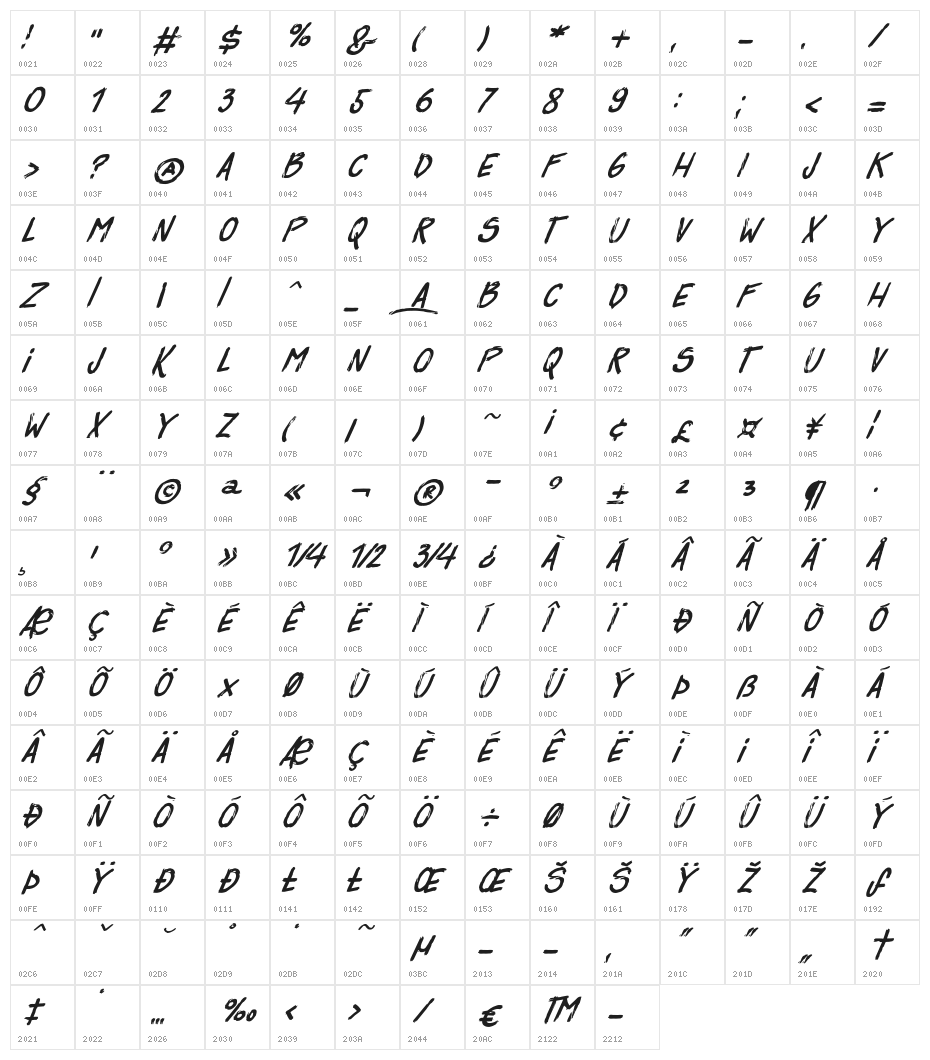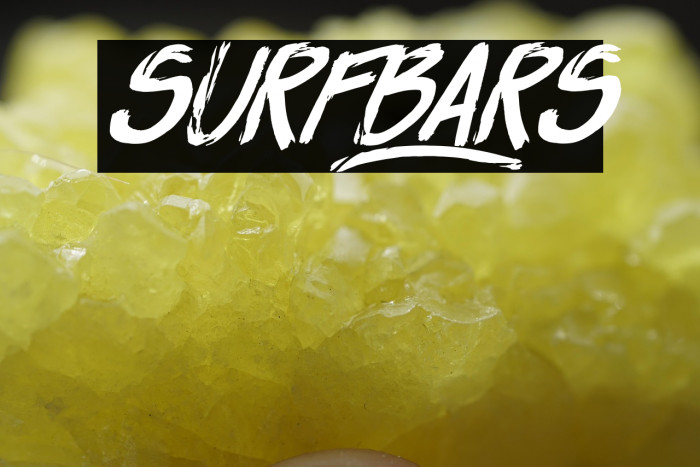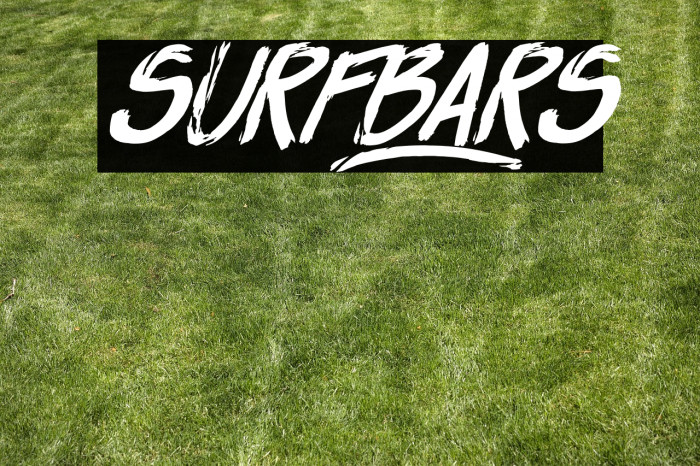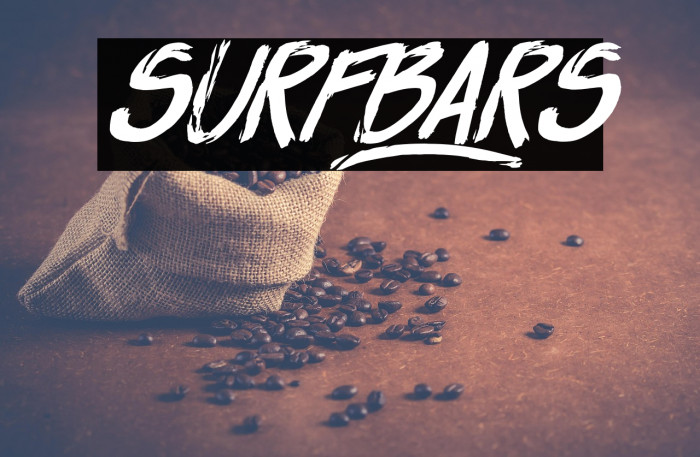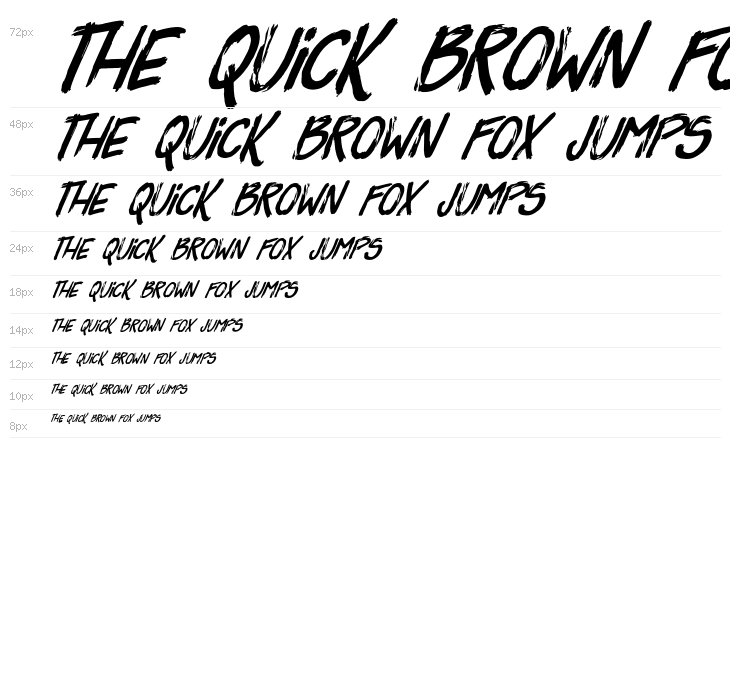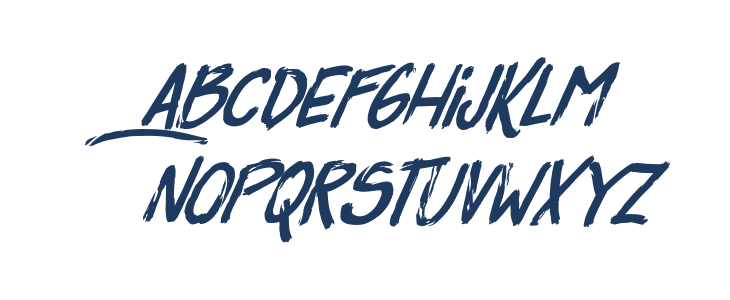
Surfbars Font
Surfbars Description
This font features a bold, energetic brush script style that exudes a sense of movement and dynamism. The strokes are thick and uneven, giving it a hand-painted appearance that is both expressive and artistic. The uppercase and lowercase letters maintain a consistent style, with a slight slant that enhances the fluidity of the design. Numbers and special characters are crafted with the same bold strokes, ensuring a cohesive look across all elements. This font is ideal for projects that require a lively and informal touch, such as posters, branding, and creative advertising.
| Proposed Projects | Ideal for posters, branding, creative advertising, and any project needing a lively, artistic touch. |